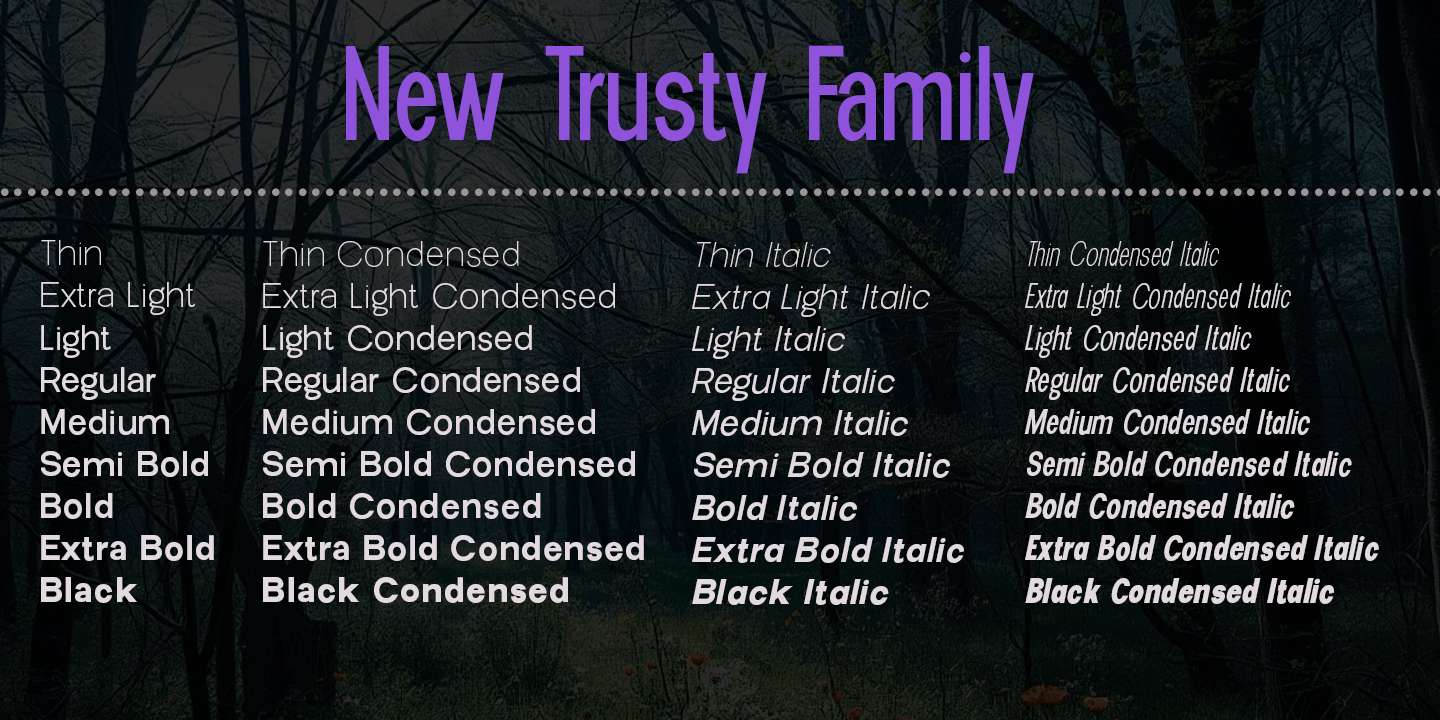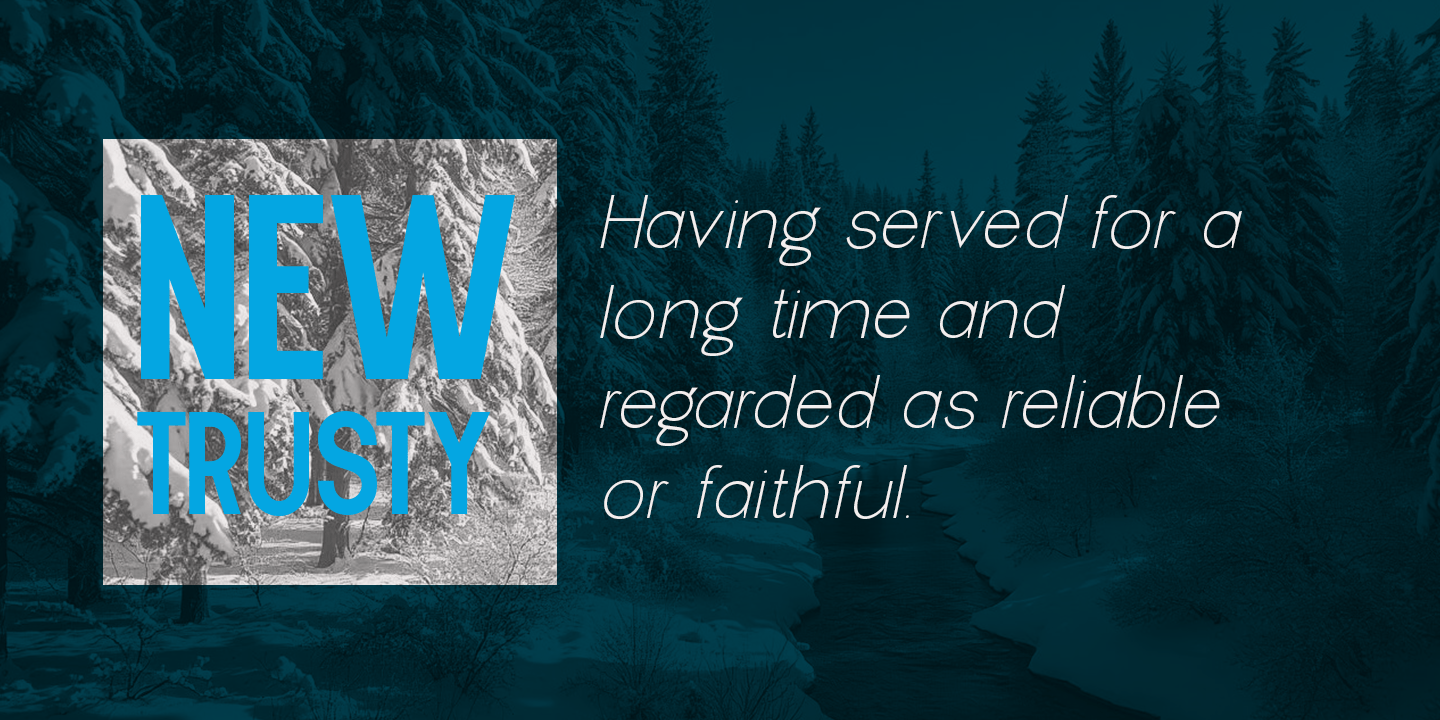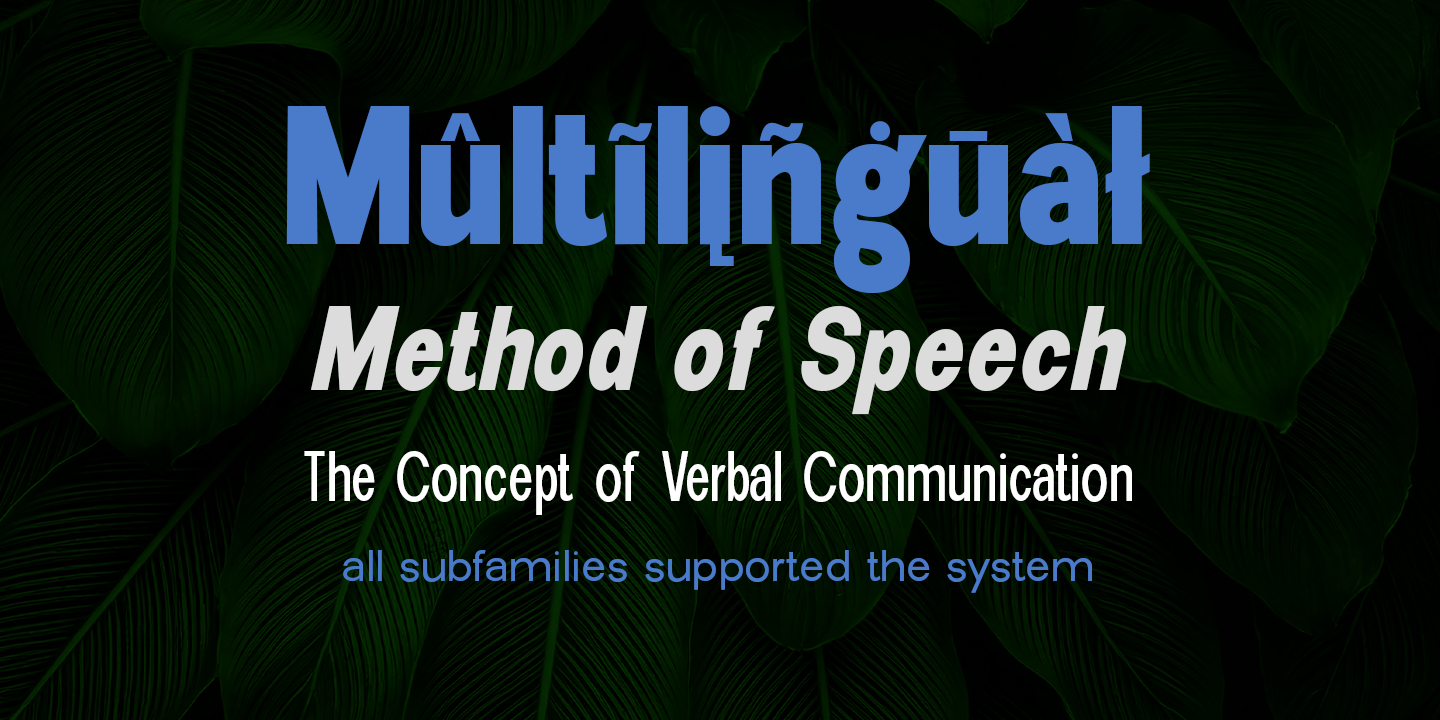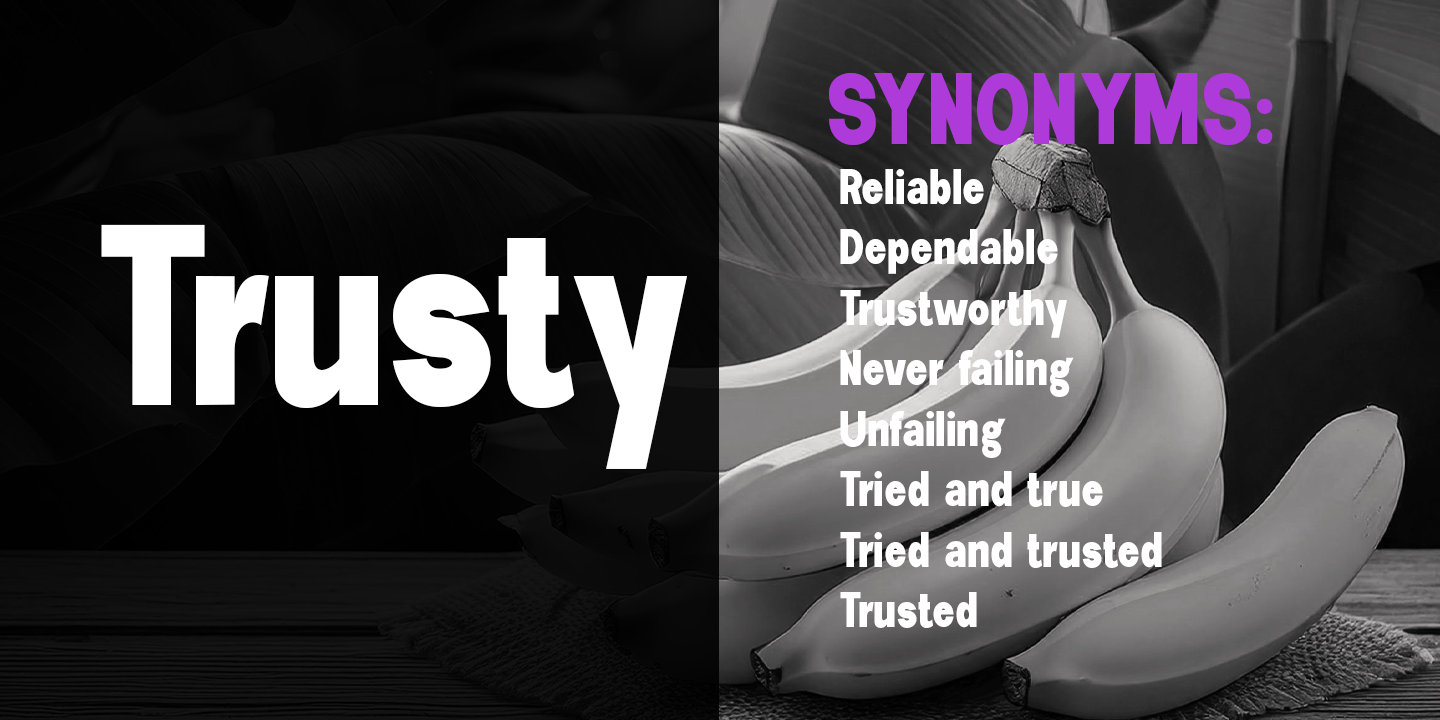
New Trusty
New Trusty typeface is a New Formal and Elegant Typeface. created in a very bold style.
New Trusty is a variation font with a slim and normal style, comes in 18 straight weights and 18 more italics, so the total is 36 font variations. This font looks amazing in logos, magazines, and movies. This font will be perfect for branding, headlines, captions, paragraphs, and posters. The various weights allow you to experiment with different applications. This font is made to make an impression without sacrificing its beauty and readability.
The New Trusty font family includes 393 glyphs.